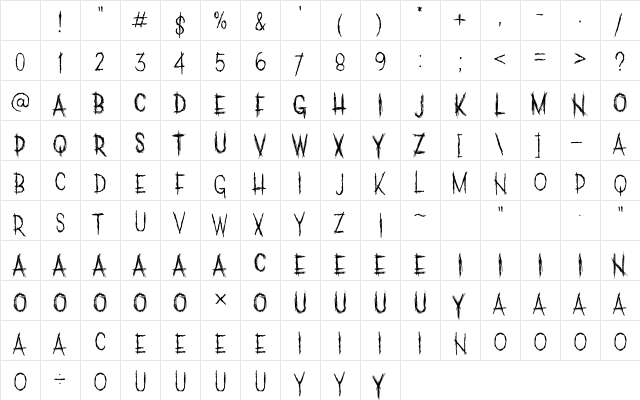
Witchwoode echoes the hand-painted signage and woodblock typography of the American frontier, with a warm, rugged personality.
Font Pairing: Combine Witchwoode with a simple slab or neutral sans - period-accurate companions reinforce the vintage feel without competing for attention.
Pro Tip: Use Witchwoode for short, impactful bursts of text - it shines in poster headlines and product names rather than extended copy.